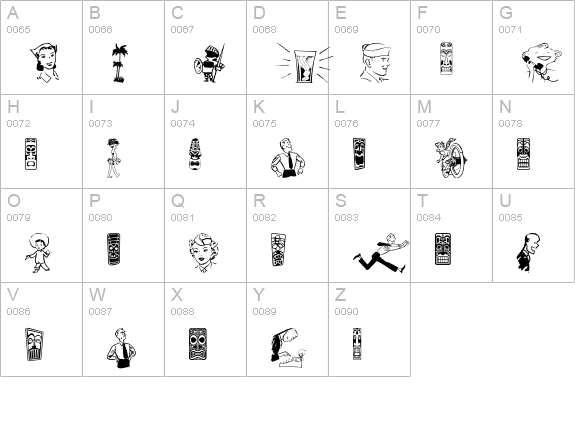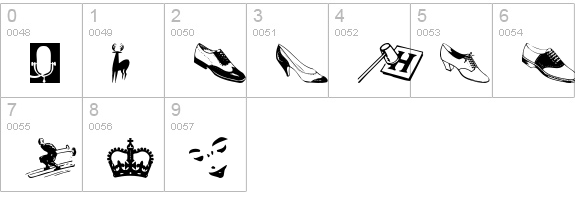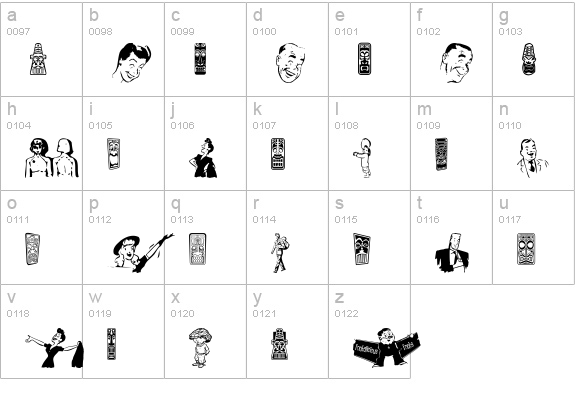
Return of the Retrobats Font Details
Introducing the captivating Return of the Retrobats font, a nostalgic typeface that takes you on a journey back in time to the golden era of retro design. This font is a perfect tribute to the classic typography that graced the pages of vintage magazines, posters, and album covers. With its bold and playful characters, Return of the Retrobats captures the essence of 1960s and 1970s graphic design, evoking a sense of nostalgia and charm. Featuring a wide range of characters, including unique retro-inspired symbols and icons, this font offers endless possibilities for creative projects. Whether you're designing a retro-themed logo, creating eye-catching headlines, or adding a touch of vintage flair to your social media posts, Return of the Retrobats is sure to make a lasting impression. And the best part? Return of the Retrobats is entirely free! Yes, you read that right. This incredible font is freely available to download at FontsMarket.com. We believe that great design should be accessible to everyone, and we're thrilled to offer this exceptional typeface at no cost. So, why wait? Embrace the retro vibes and let Return of the Retrobats bring your designs to life. Download this font today and embark on a creative journey that celebrates the timeless appeal of vintage design.